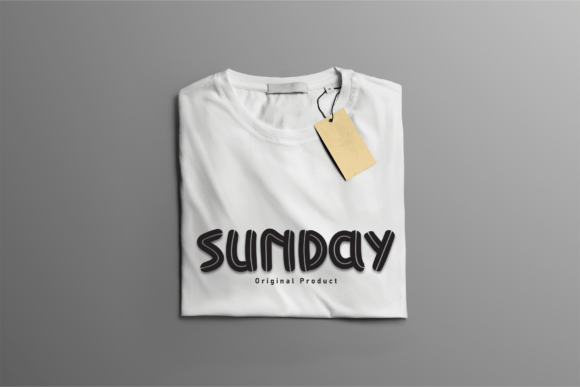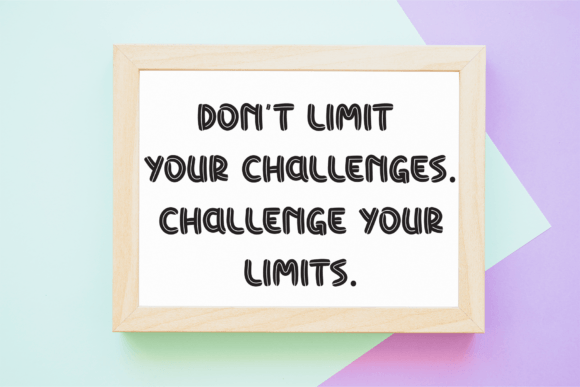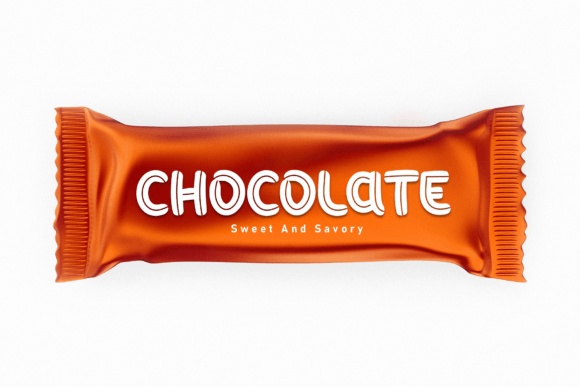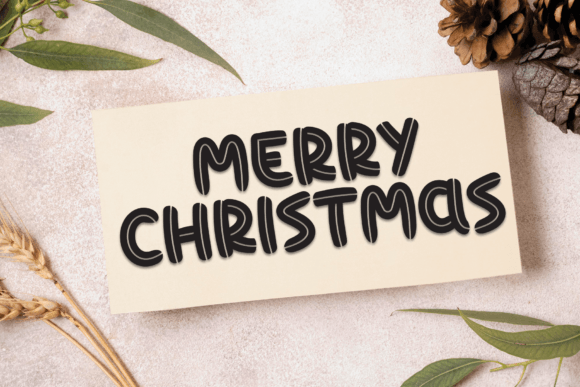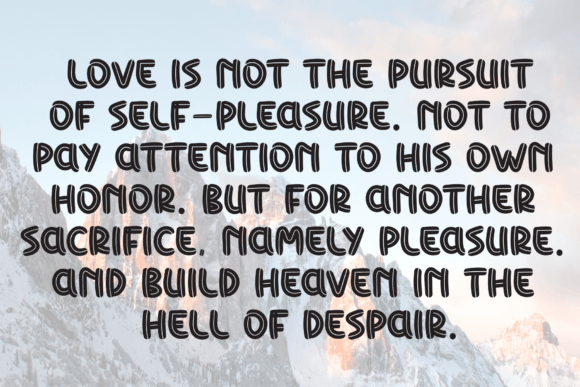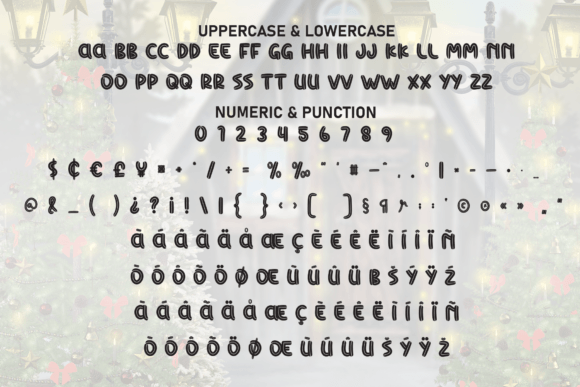
Discover the Whimsy of Grinch Farmhouse Font
As a designer, you’ve likely experienced that moment when a spark of creativity strikes – the perfect combination of colors, the ideal typography, and a dash of magic that brings your design to life. For us, that moment arrived with the Grinch Farmhouse Font, a captivating handwritten display font that whispers elegance and simplicity.
This charming font is more than just a pretty face; it’s a tool designed to add a personal touch to your creations. Whether you’re crafting wedding invitations, heartfelt cards, or any other design project, the Grinch Farmhouse Font brings a breath of whimsy that makes your work not just seen, but felt and remembered.
Grinch Farmhouse Font Key Features
- Font Family: Grinch Farmhouse Font is a unique, handwritten font family designed to evoke a rustic, farmhouse feel.
- Font Size: The font family includes multiple weights, ranging from 100 to 900, allowing for a wide range of design applications.
- Unique Characteristics: Features a distinctive, handwritten style with irregular letterforms, making it perfect for adding a touch of personality to designs.
Designer Review: Grinch Farmhouse Font
I recently had the chance to work with the Grinch Farmhouse Font, and I have to say it’s a unique addition to any design project. Here’s my honest review.
- Whimsical charm: The Grinch Farmhouse Font has a certain je ne sais quoi that’s perfect for projects that need a touch of playfulness.
- Customization options: The font comes with a range of styles and weights, making it easy to find the perfect fit for your design.
- Legibility: Despite its playful nature, the font is surprisingly easy to read, even at smaller sizes.
- Overuse potential: The Grinch Farmhouse Font is so charming that it’s easy to overuse it. Be careful not to overdo it!
The Grinch Farmhouse Font is a delightful addition to any design project. While it may have some limitations, its unique charm and customization options make it a great choice for the right project. With careful use and attention to compatibility, this font can add a touch of magic to your designs.
For a more authentic look, pair the Grinch Farmhouse Font with distressed textures and vintage graphics. Use it for rustic-themed designs, such as:
- Rustic wedding invitations
- Farmhouse-style social media graphics
- Country-themed book covers
Alternatives to Grinch Farmhouse Font
Great Vibes is a handwritten, cursive font that exudes a sense of playfulness and warmth. It’s ideal for designs that require a touch of whimsy and a carefree feel. Great Vibes is a more elegant and sophisticated alternative to Grinch Farmhouse Font, with more refined lines and a softer appearance.
Alex Brush is a brush script font that offers a more rustic and earthy feel compared to Grinch Farmhouse Font. It’s perfect for designs that require a sense of ruggedness and a connection to nature. Alex Brush is a more bold and expressive font, making it suitable for headings and titles.
Carolyna Pro is a modern script font that offers a sleek and sophisticated look. It’s ideal for designs that require a touch of luxury and elegance. Carolyna Pro is a more refined and polished alternative to Grinch Farmhouse Font, with a more streamlined appearance and a wider range of weights.
Lobster is a casual, cursive font that’s perfect for designs that require a relaxed and friendly feel. It’s a more playful and laid-back alternative to Grinch Farmhouse Font, with a more rounded and organic appearance. Lobster is ideal for headings and titles, as well as body text in informal designs.